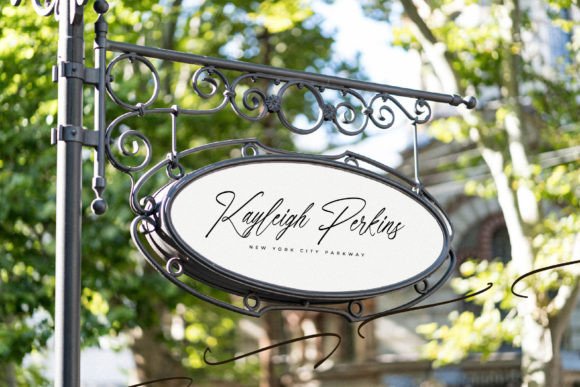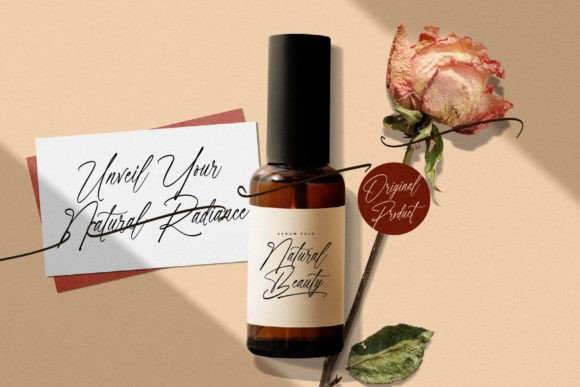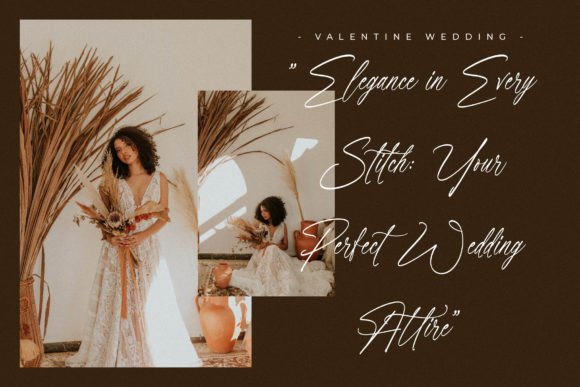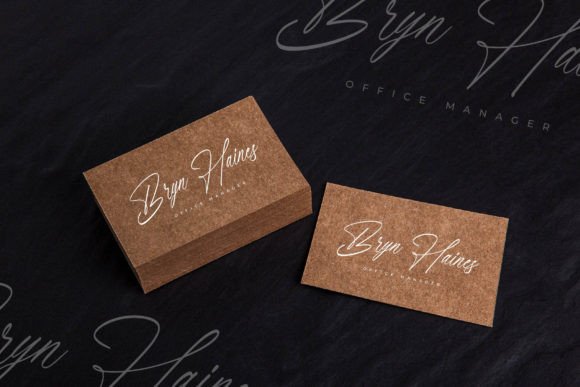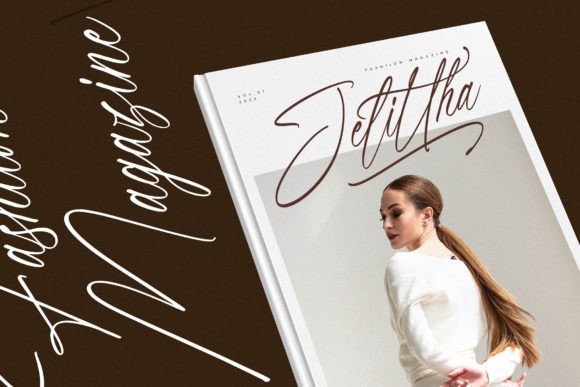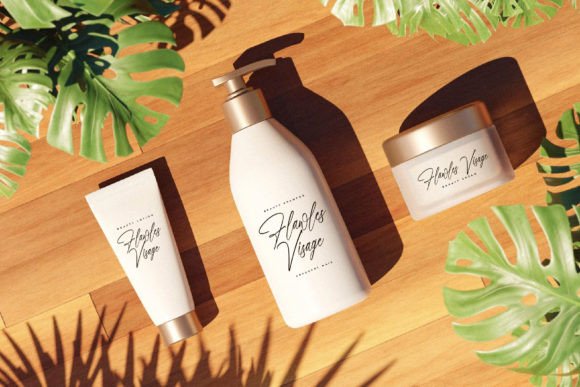
The Perfect Script Font for Your Next Design Project
As a designer, there’s nothing quite like that moment when a project comes together and you see the perfect font used in the perfect way. The letters seem to dance across the page, and you know you’ve nailed it. For me, that moment happened when I stumbled upon the Flawvess Font, and I knew I had to share it with the world.
Flawvess Font is a stunning script font that adds a touch of elegance to any design project. Whether you’re creating wedding invitations, thank you cards, or logos, this font is sure to impress. Its versatility and beauty make it a valuable asset for any designer looking to add a handwritten touch to their work.
Key Features of Flawvess Font
- Font Style: Script, Handwritten
- Unique Characteristics: Includes 6 styles: Regular, Italic, Bold, Bold Italic, Swash, and Alternate
- Language Support: Supports multiple languages, including Latin-based languages and Cyrillic
Flawvess Font Review
Flawvess Font is an interesting font choice for designers looking to add a touch of edginess to their projects. Here are some key points to consider: ✨
- The font has a unique, bold aesthetic that can be used effectively in headings and titles.
- It’s great for making a statement and adding visual interest to designs.
- There are plenty of variations and styles available to suit different design needs.
However, there are also some limitations to consider: ⚠️
- The font may not be the most readable in smaller sizes or for large blocks of text.
- It can be quite overwhelming if used excessively, so be careful not to overdo it.
- The font’s boldness may not be suitable for all design projects or audiences.
Overall, Flawvess Font is a solid choice for designers who want to add a touch of attitude and edge to their designs. While it may have some limitations, it’s a great option for making a statement and adding visual interest. Just be mindful of its potential drawbacks and use it thoughtfully.
Tips for Getting the Most Out of Flawvess Font
Use the Flawvess Font for creative and artistic projects, such as typography-based designs, quotes, and headings. Experiment with different font sizes, colors, and styles to create a unique look. You can also pair the Flawvess Font with other fonts to create a visually appealing combination.
The Flawvess Font is perfect for:
Typography-based designs
Quotes and headings
Artistic and creative projects
Branding and marketing materials
Alternatives to Flawvess Font for Designers
Great Vibes Font is a beautiful, elegant script font that is perfect for creating a sense of sophistication and luxury. It is ideal for use in wedding invitations, branding, and packaging design.
Compared to Flawvess Font, Great Vibes Font has a more refined and polished look, making it suitable for high-end designs. However, it lacks the quirky, playful feel of Flawvess Font.
Carolyna Pro Font is a modern, sans-serif font that is perfect for creating a sense of professionalism and modernity. It is ideal for use in corporate branding, websites, and digital design.
Compared to Flawvess Font, Carolyna Pro Font has a more straightforward and clean look, making it suitable for business and corporate designs. However, it lacks the creative and artistic feel of Flawvess Font.
Alex Brush Font is a beautiful, handwritten font that is perfect for creating a sense of warmth and personality. It is ideal for use in creative projects, such as book covers, posters, and social media graphics.
Compared to Flawvess Font, Alex Brush Font has a more natural and organic feel, making it suitable for creative and artistic designs. However, it lacks the edgy and modern feel of Flawvess Font.